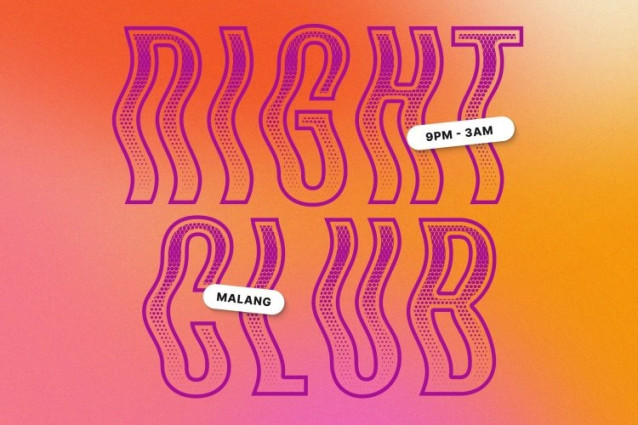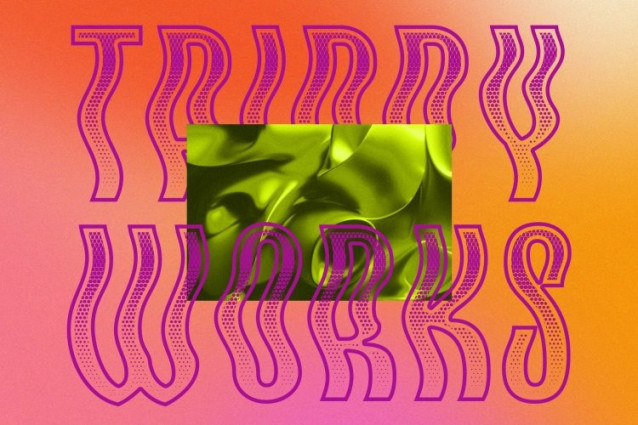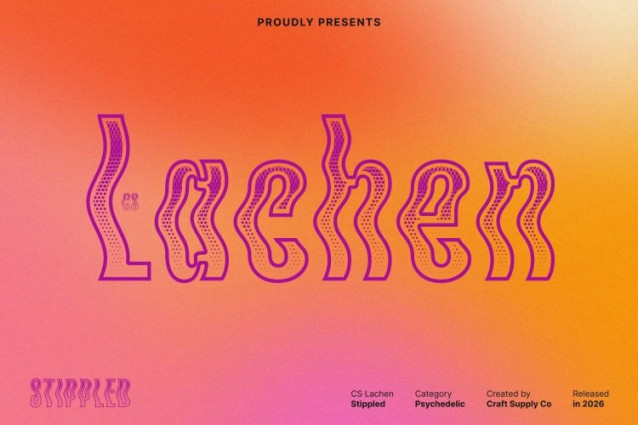
CS Lachen Stippled Font
CS Lachen Stippled Font – This is a psychedelic display font created to captivate with bold, character-filled visuals. Blending unconventional shapes with eccentric design elements, this font delivers a striking presence that instantly stands out. Its curvy, wavy, and slightly distorted forms capture the free-spirited essence of psychedelic art, bringing creativity and whimsy into every letter.
Expressive Shapes with Artistic Energy
The font features playful distortions and imaginative letterforms that amplify its artistic flair. Each character is crafted to radiate creativity and movement, making the typeface feel lively and full of personality. The stippled texture adds depth and tactile charm, enhancing the visual richness of the design.
Perfect for Bright Colors and Bold Visuals
This font shines when paired with vibrant colors and bold patterns. Its energetic style naturally complements eye-catching palettes, making it ideal for projects that aim to be lively, expressive, and visually unforgettable.
Ideal for Attention-Grabbing Designs
Perfect for music posters, festival graphics, creative branding, and expressive promotional materials, this font delivers a distinctive voice that demands attention and celebrates artistic individuality.